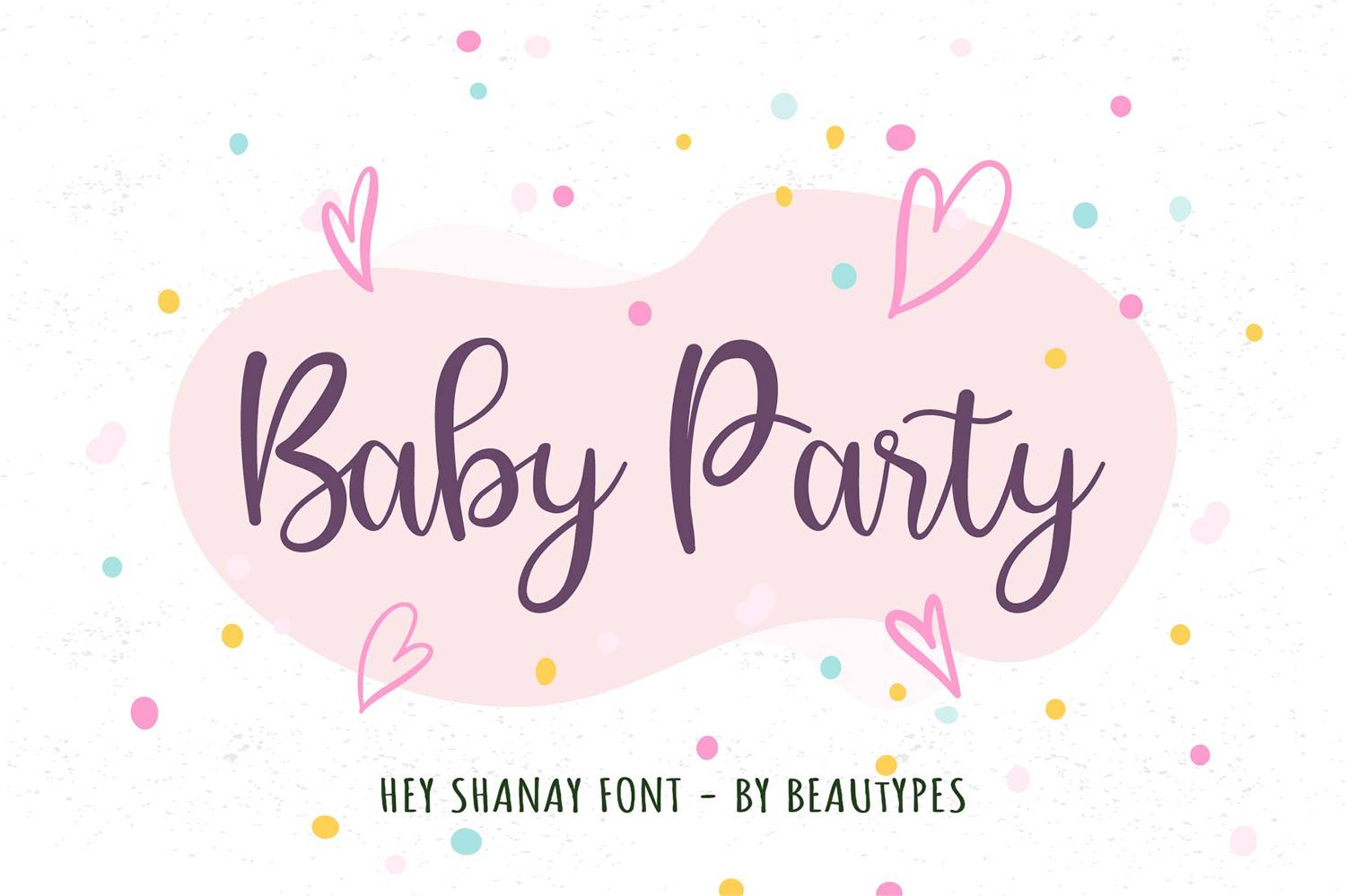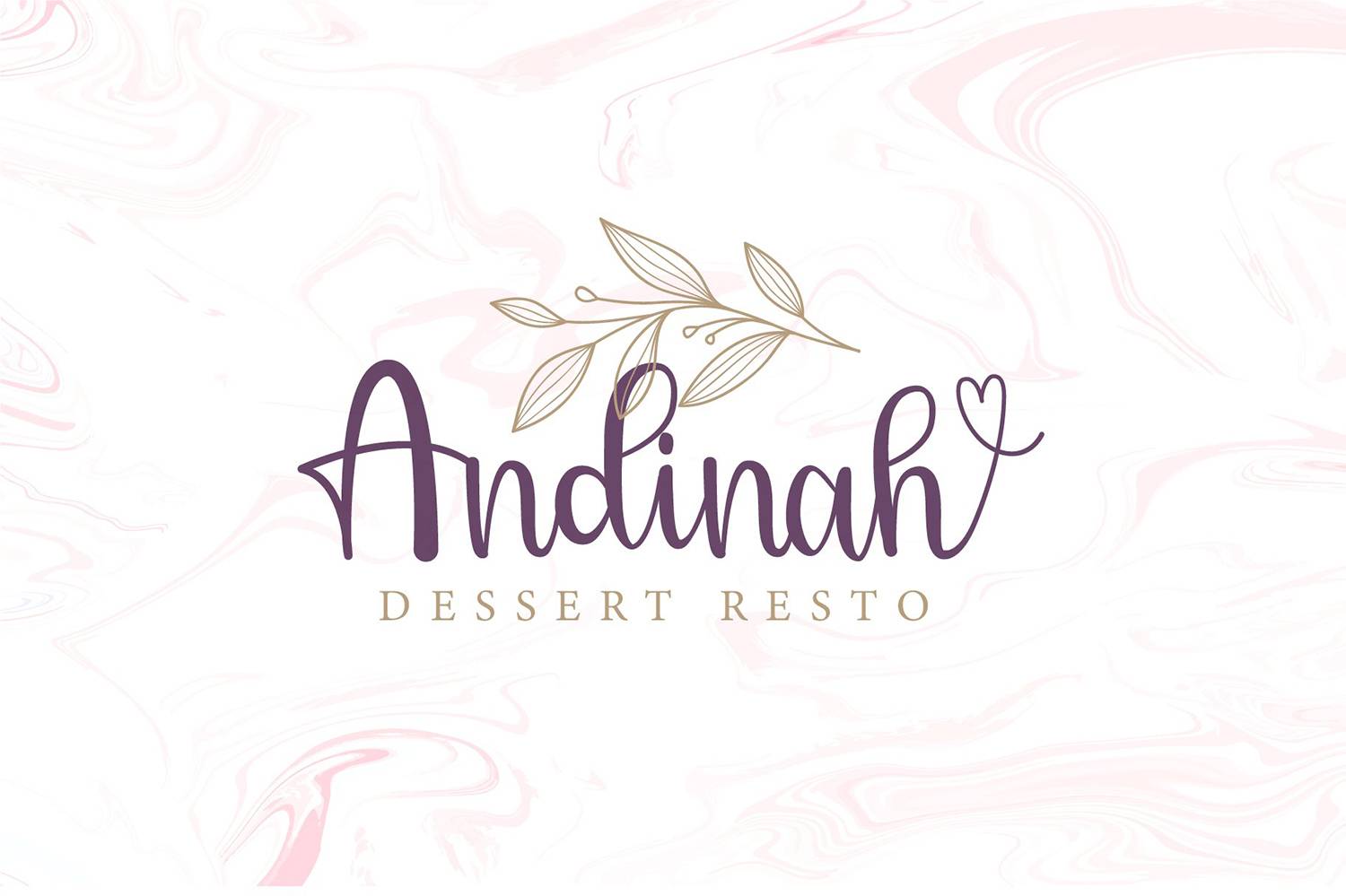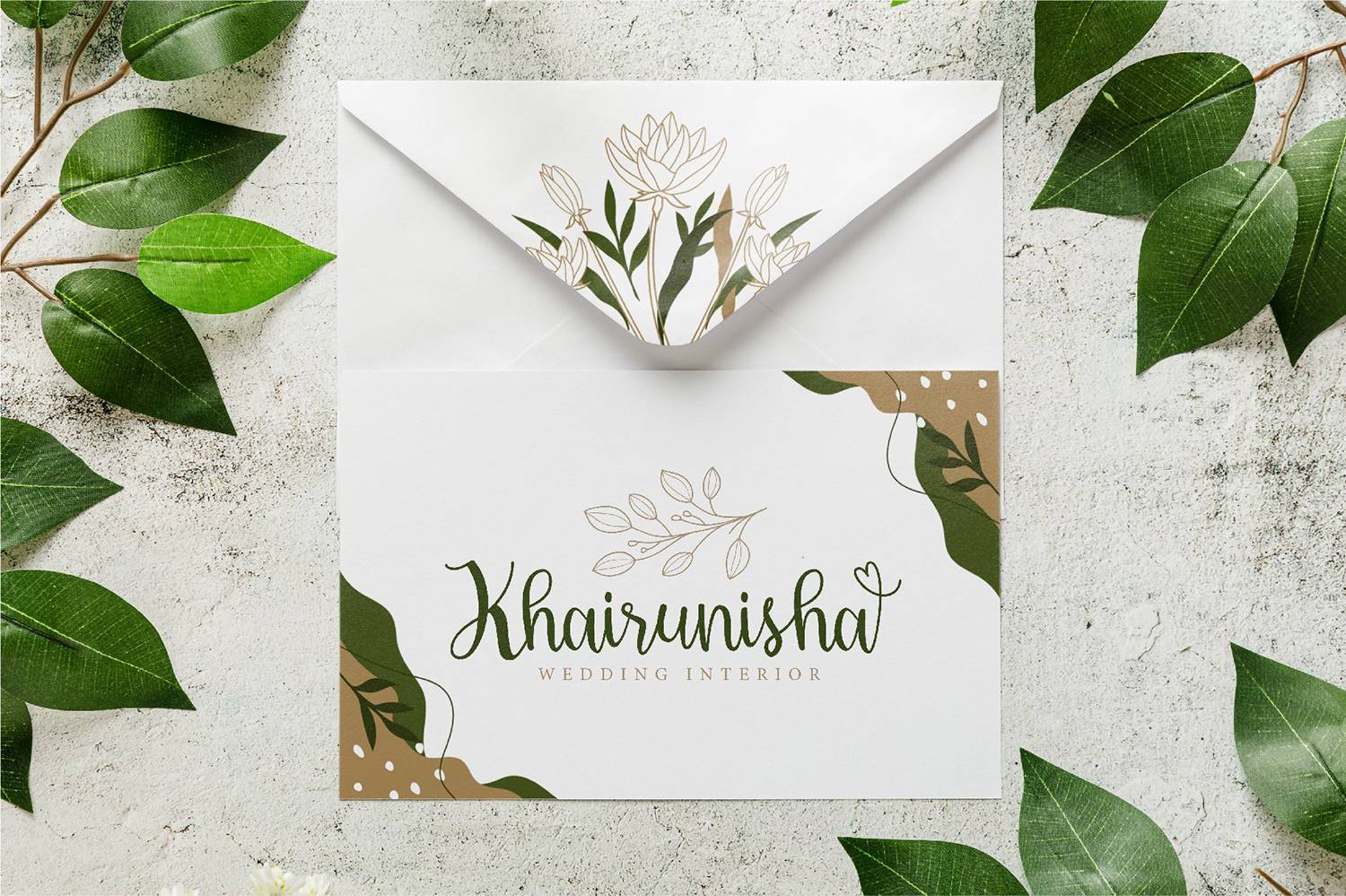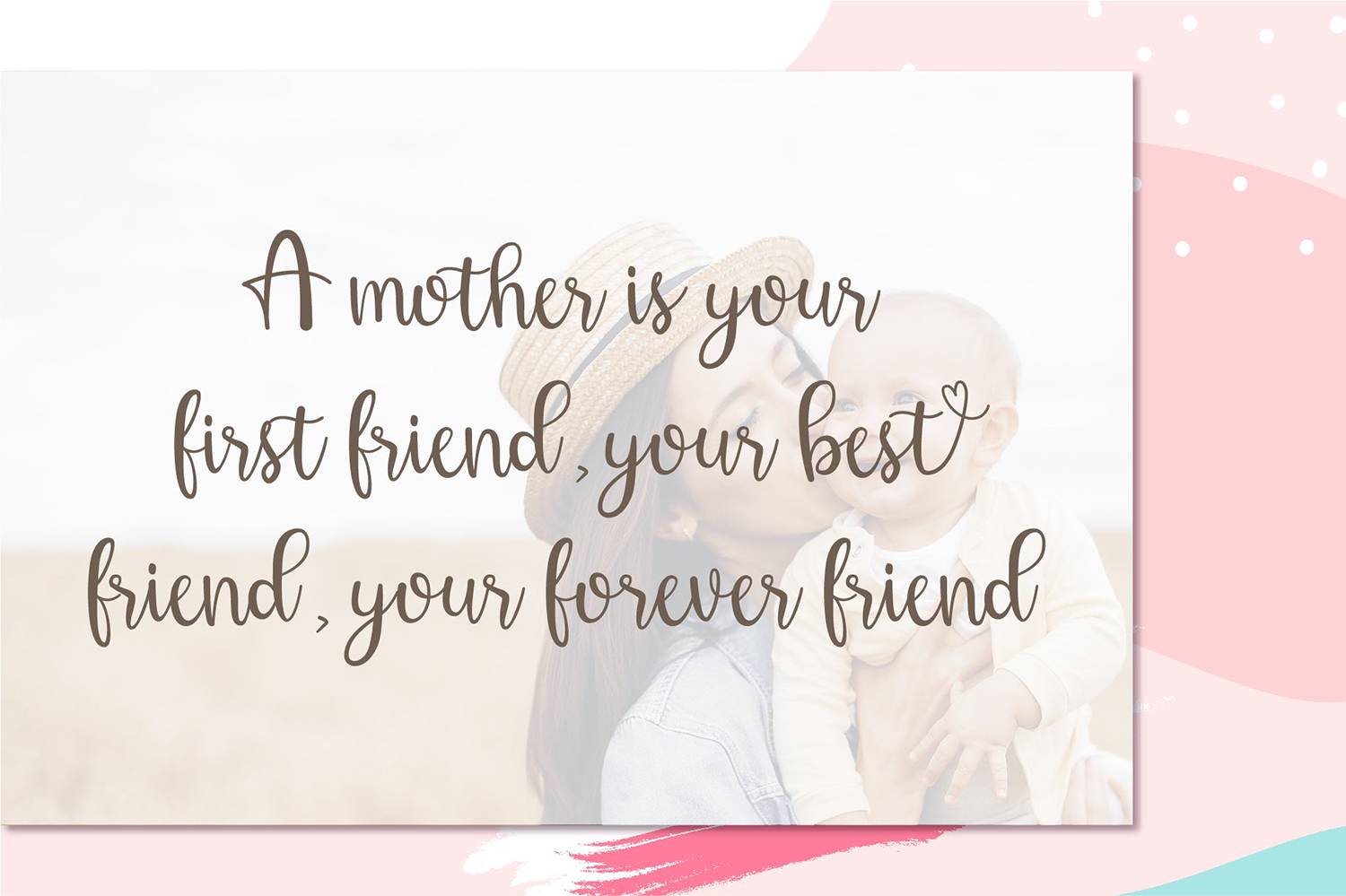
Hey Shanay is a playful, handwritten script font characterized by its flowing, casual letterforms and moderate contrast in stroke weight. Its tall x-height and whimsical curves give it a friendly, approachable feel, making it an excellent choice for branding, invitations, and creative projects that seek a personal and lively touch. This font shines in contexts where warmth and charm are desired, such as logos, social media graphics, and informal headlines.
| Font family | Hey Shanay Font |
| Designer | Yansuari Shakti |